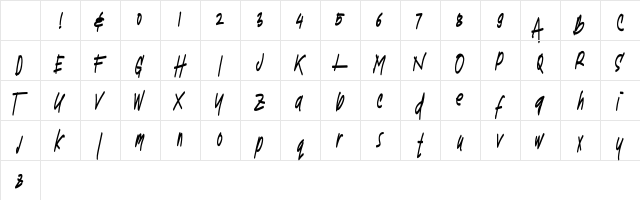
Complete TURQOISE Regular glyph index. Displaying only characters natively supported by TURQOISE Regular font.
TURQOISE is a composed and adaptable typeface that performs quietly and consistently across a wide range of design contexts.